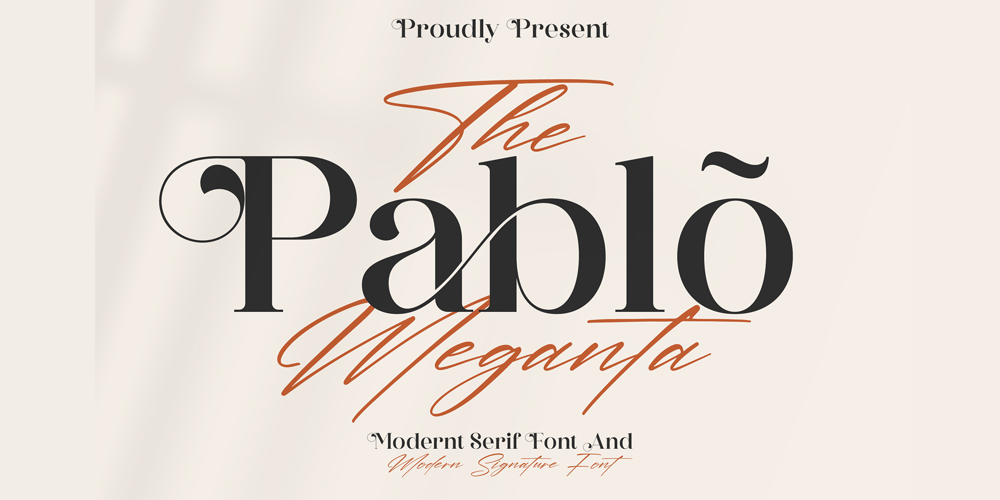
The Pablo Meganta Signature Font Family was designed by Heru Utama Putra and published by Letterena Studios. The Pablo Meganta Signature contains 3 styles and family package options. The Pablo Meganta consists of two fonts designed to complement each other perfectly. Together or apart, these fonts are ideal for adding a chic and cheery touch to your crafts. This font is PUA encoded which means you can access all glyphs and swashes with ease!